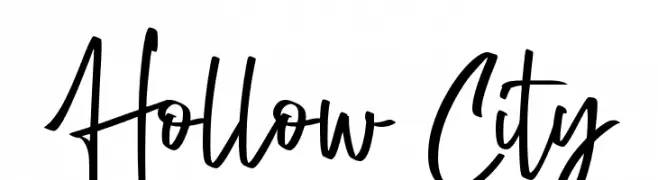
An elegant, flowing script font with graceful loops and a sophisticated charm.
A graceful script font with elegant, flowing curves and calligraphic style.
An elegant script font with flowing, cursive strokes and graceful curves.
A lively handwritten font with dynamic curves and fluid strokes.
A lively handwritten font with fluid, energetic strokes and a playful style.
An elegant script font with intricate, flowing letterforms and decorative swirls.
A playful and casual script font with fluid, connected strokes.
A playful, handwritten script font with a modern, decorative style.
A playful, whimsical handwritten font with fluid, interconnected strokes.
A lively, expressive handwritten font with fluid, dynamic strokes.